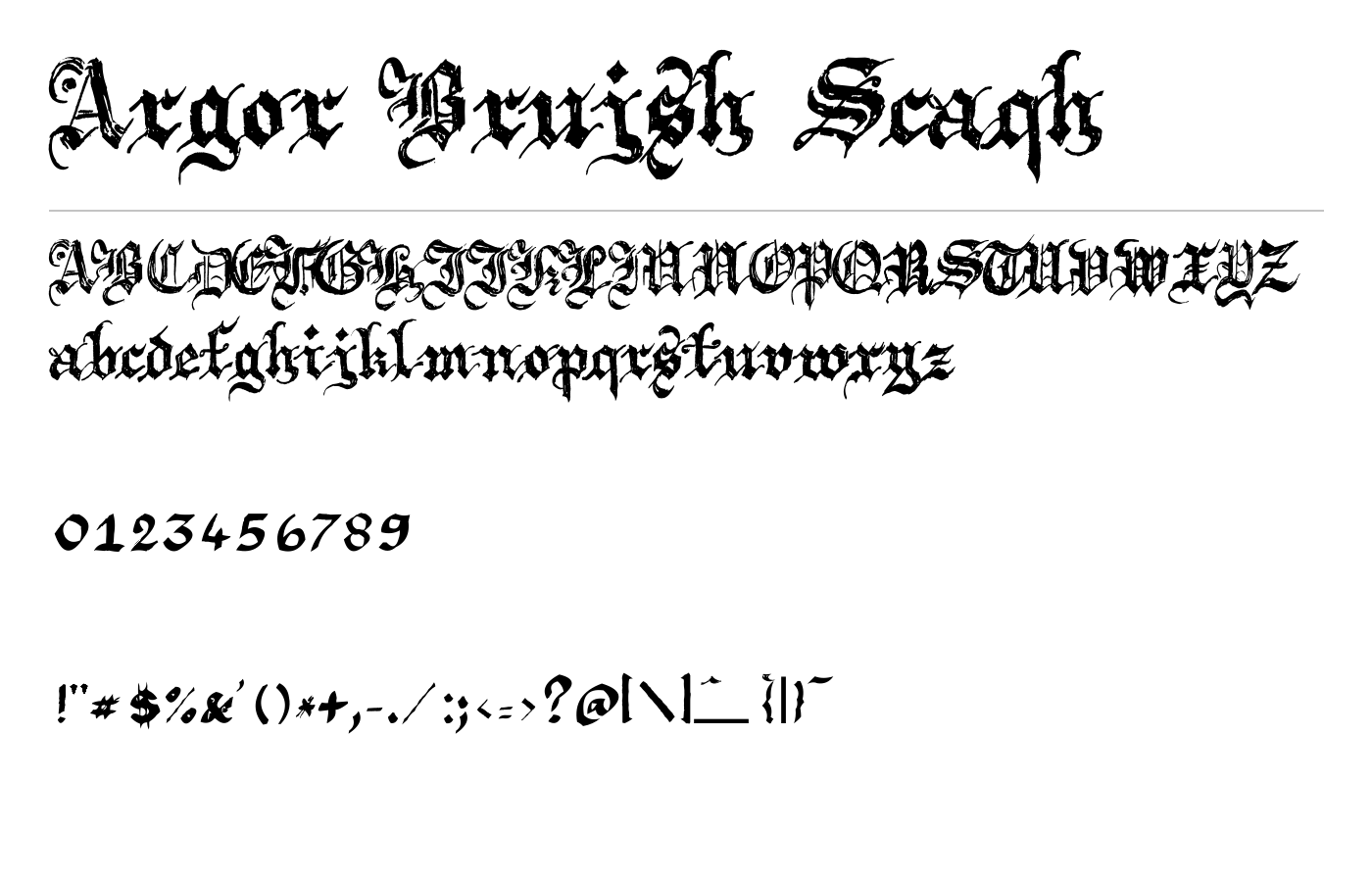
Argor Brujsh Scaqh is a bold blackletter font with intricate, sharp strokes and high contrast, evoking a historic and gothic feel. Its detailed letterforms and strong presence make it ideal for vintage or medieval-inspired designs, perfect for logos, headlines, and decorative uses where a dramatic and ornate style is desired. This font adds an old-world, mysterious character to any project seeking a classic yet powerful aesthetic.
Argor Brujsh Scaqh Font
About Argor Brujsh Scaqh Font